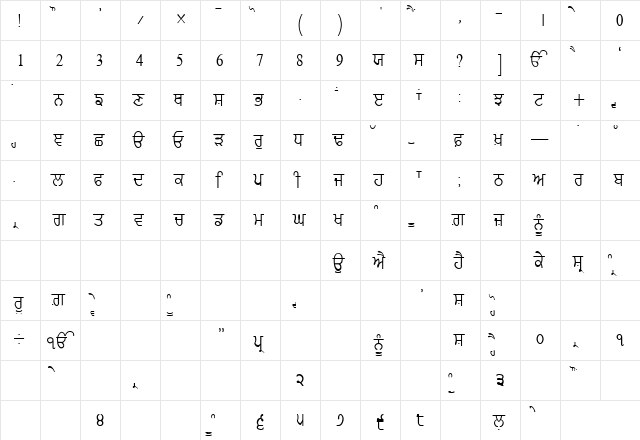
GurmukhiLys 020 Thin Normal
Design Context for GurmukhiLys 020 Thin Typeface
GurmukhiLys 020 Thin takes a measured approach to typography — its balanced proportions and neutral character make it a reliable workhorse for both digital and print work. The delicate stroke weight brings airiness and refinement to layouts.